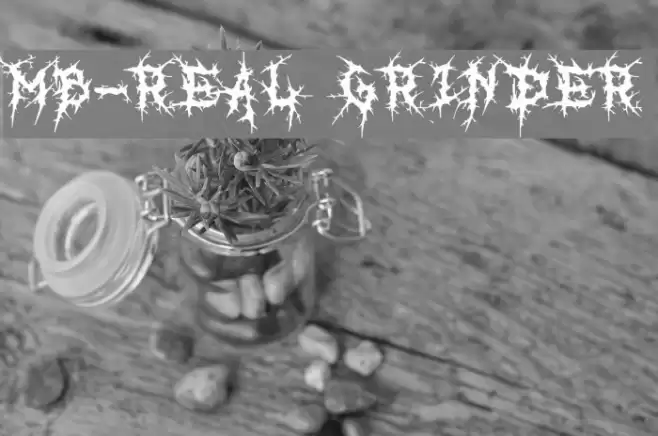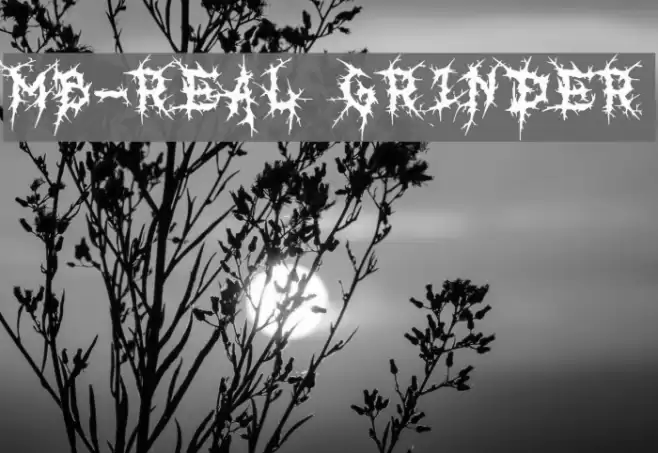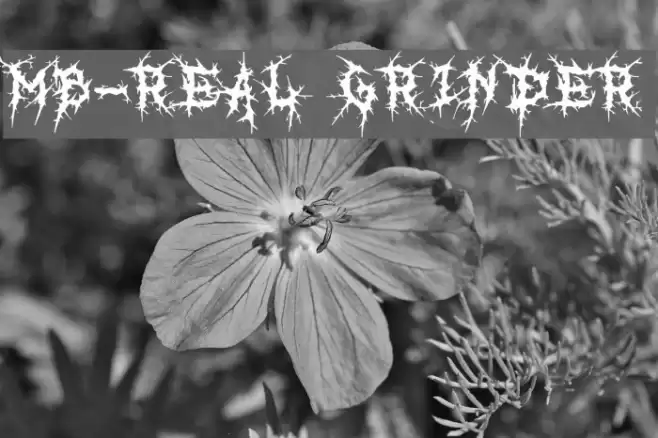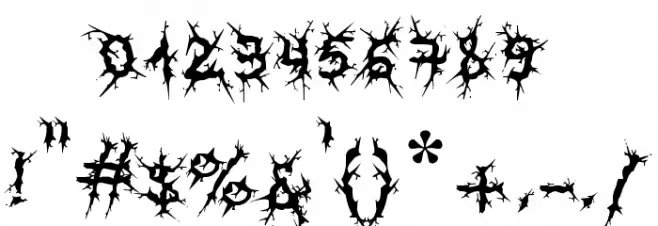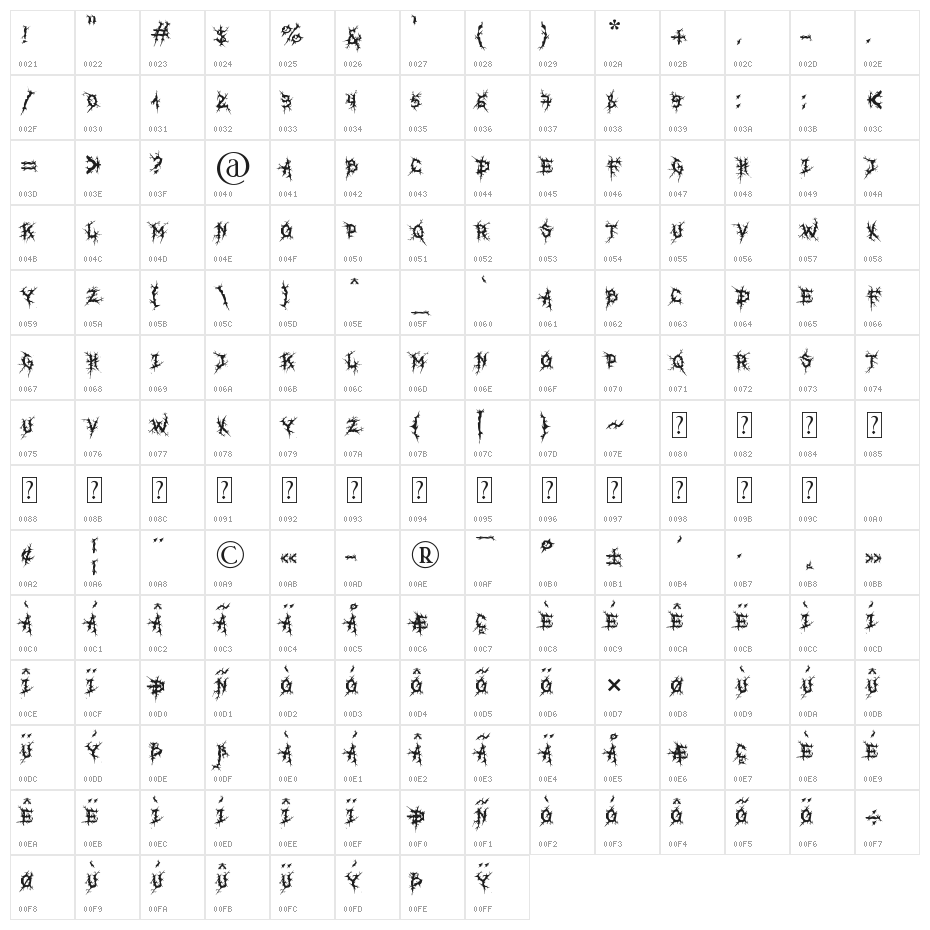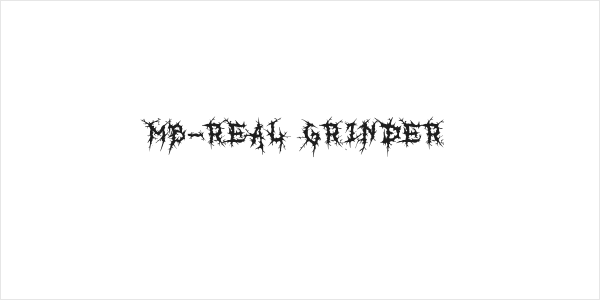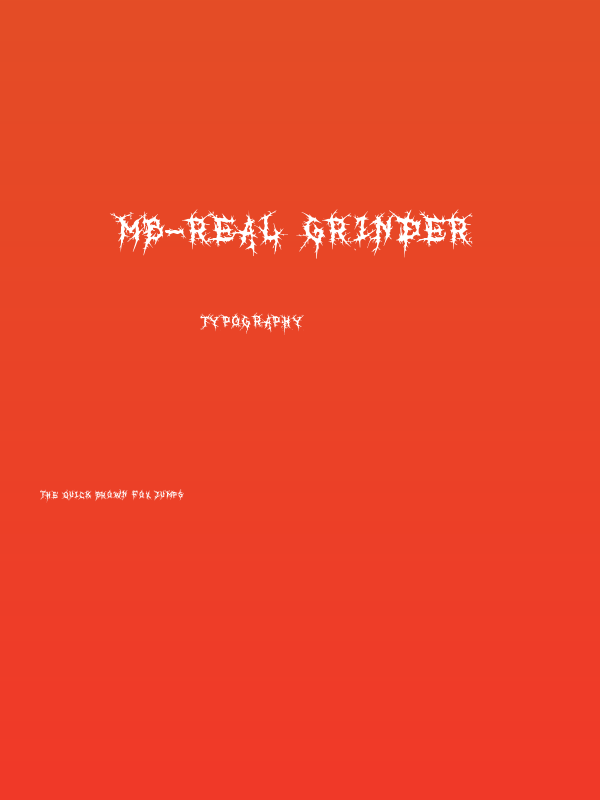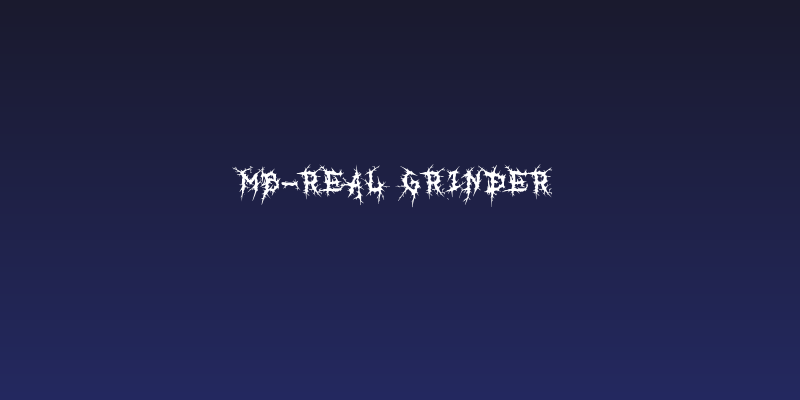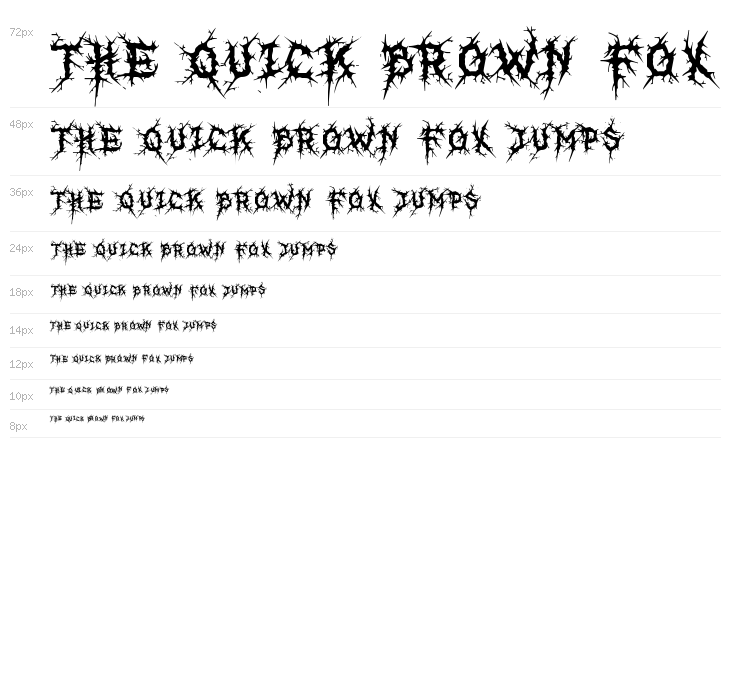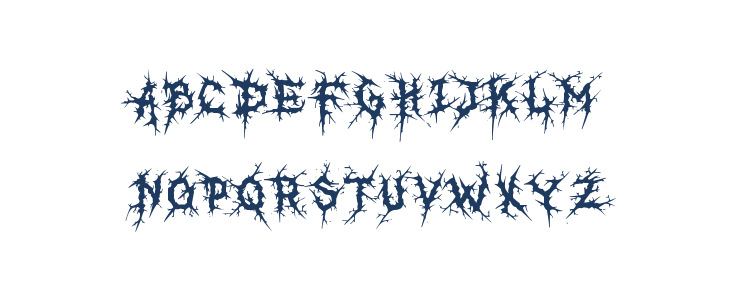
MB-Real Grinder Font
MB-Real Grinder Description
This font is characterized by its aggressive, thorny appearance, reminiscent of sharp, jagged edges or barbed wire. Each letter is intricately designed with spikes protruding in various directions, creating a chaotic yet structured look. The uppercase and lowercase letters maintain a consistent style, with the numbers and special characters following suit. The overall design gives off a dark, edgy vibe, making it suitable for projects that require a bold, attention-grabbing typeface. The font's unique style is both decorative and intimidating, perfect for themes that embrace a gothic or horror aesthetic.
A thorny, jagged font with a dark, edgy aesthetic from Uncategorized fonts.
- Proposed Projects: Ideal for horror-themed posters, album covers, Halloween invitations, or any project needing a bold, gothic touch.
- Overall Style: Gothic, Edgy, Decorative